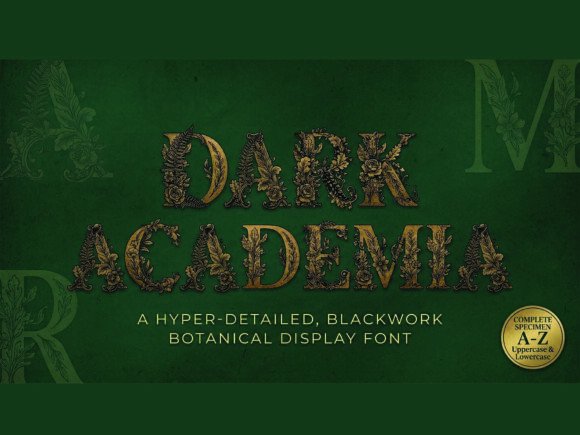
Introduction to Dark Academia Font
Embrace moody elegance with Dark Academia, a stunningly intricate display font.
Inspired by blackwork illustration, each letter features hyper-detailed botanical motifs, leaves, and vines Perfect for giving your vintage, gothic, or scholarly designs an ornate, magical touch.